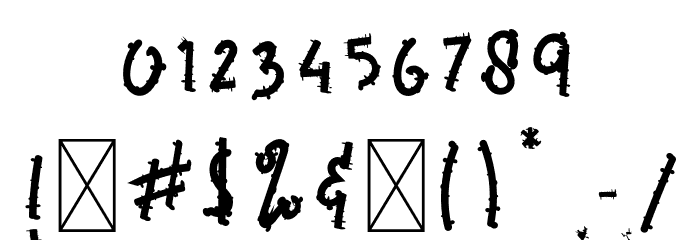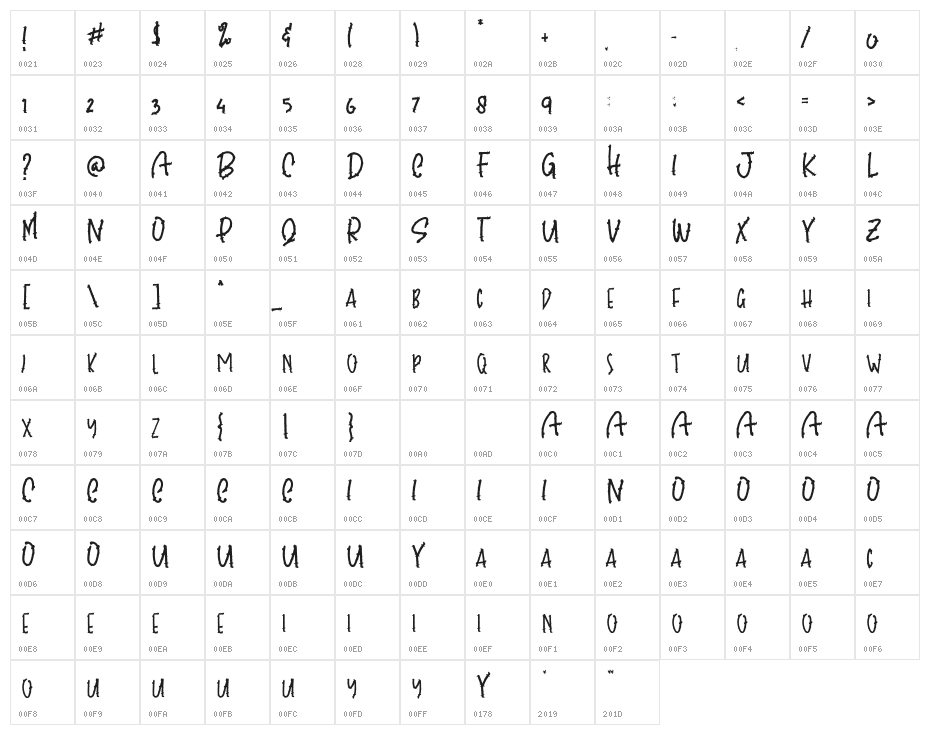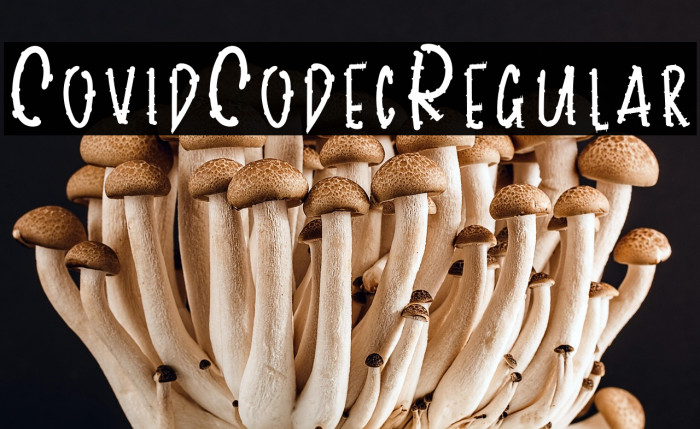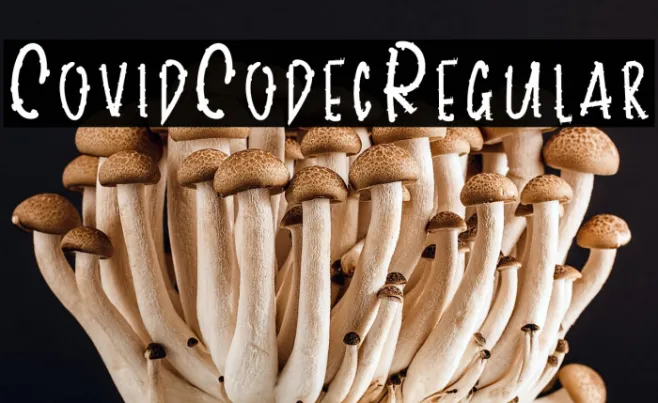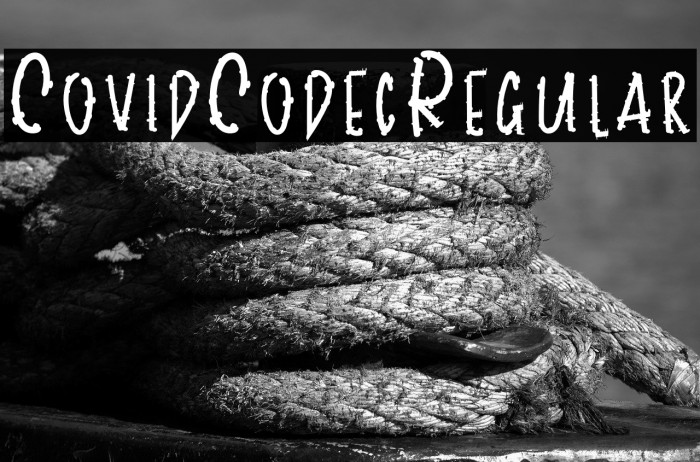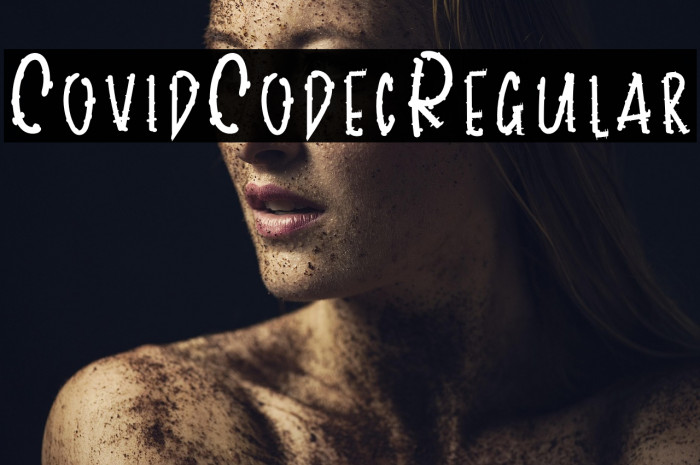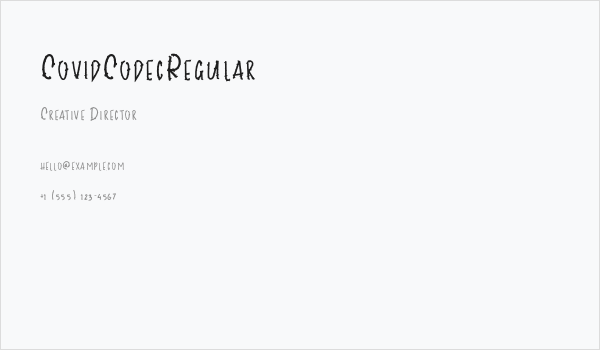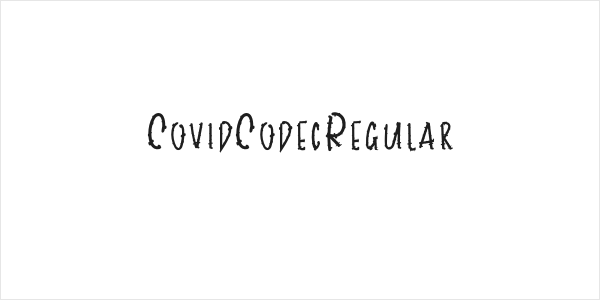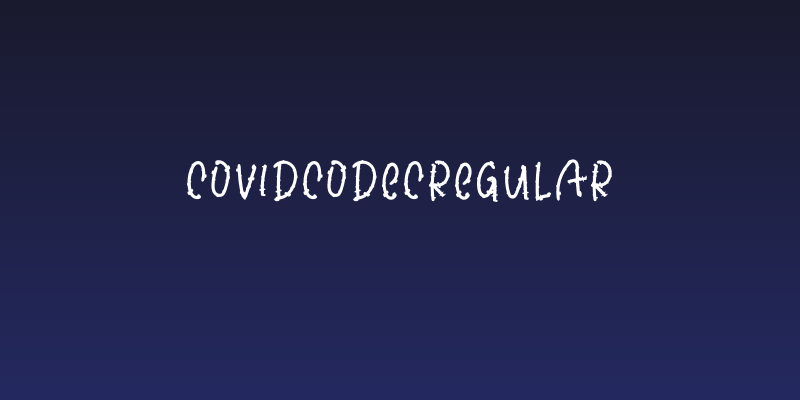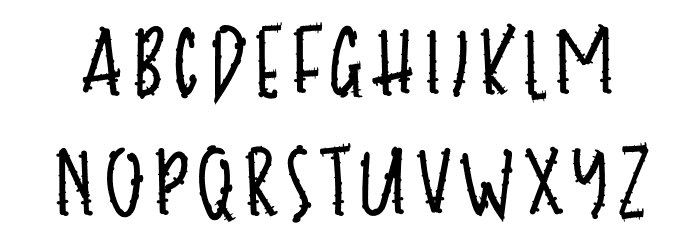
CovidCodecRegular Font
CovidCodecRegular Description
This font features a rugged, hand-drawn style with uneven strokes and a distressed appearance, giving it a raw and organic feel. The characters are bold and slightly irregular, creating a sense of movement and energy. The uppercase and lowercase letters maintain a consistent style, with jagged edges and a textured look that adds depth and character. The numerals and special characters follow the same aesthetic, making the font cohesive and versatile. Its unique style makes it suitable for projects that require a bold statement or an edgy, artistic touch.
| Proposed Projects | Ideal for posters, album covers, graffiti art, and edgy branding projects. |